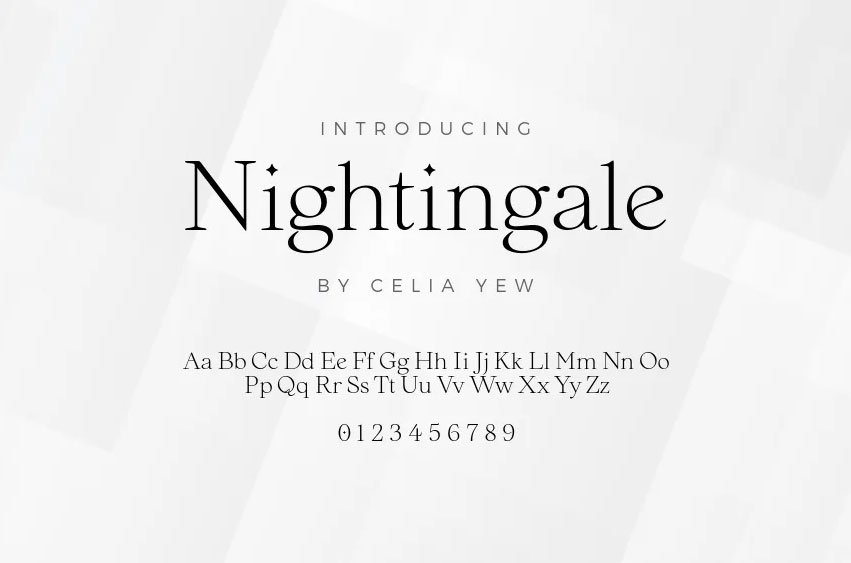
Nightingale Fontis a versatile serif typeface that effortlessly blends elegance with functionality. Ideal for both body text and display purposes, it draws inspiration from the renowned Japanese music collective, Geinoh Yamashirogumi.
Expertly crafted by Celia Yew, this font boasts a sophisticated and timeless style that is sure to elevate any design project.